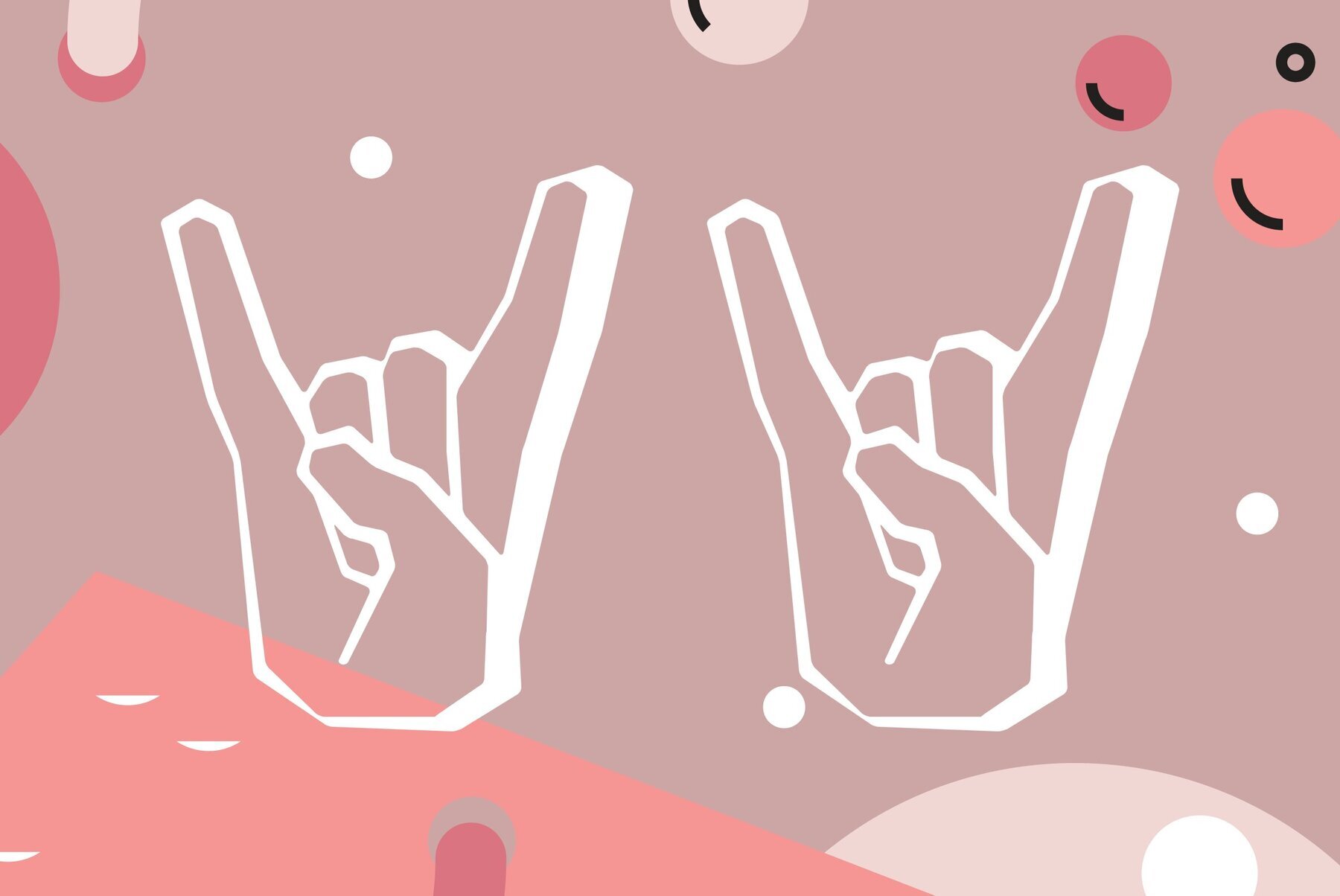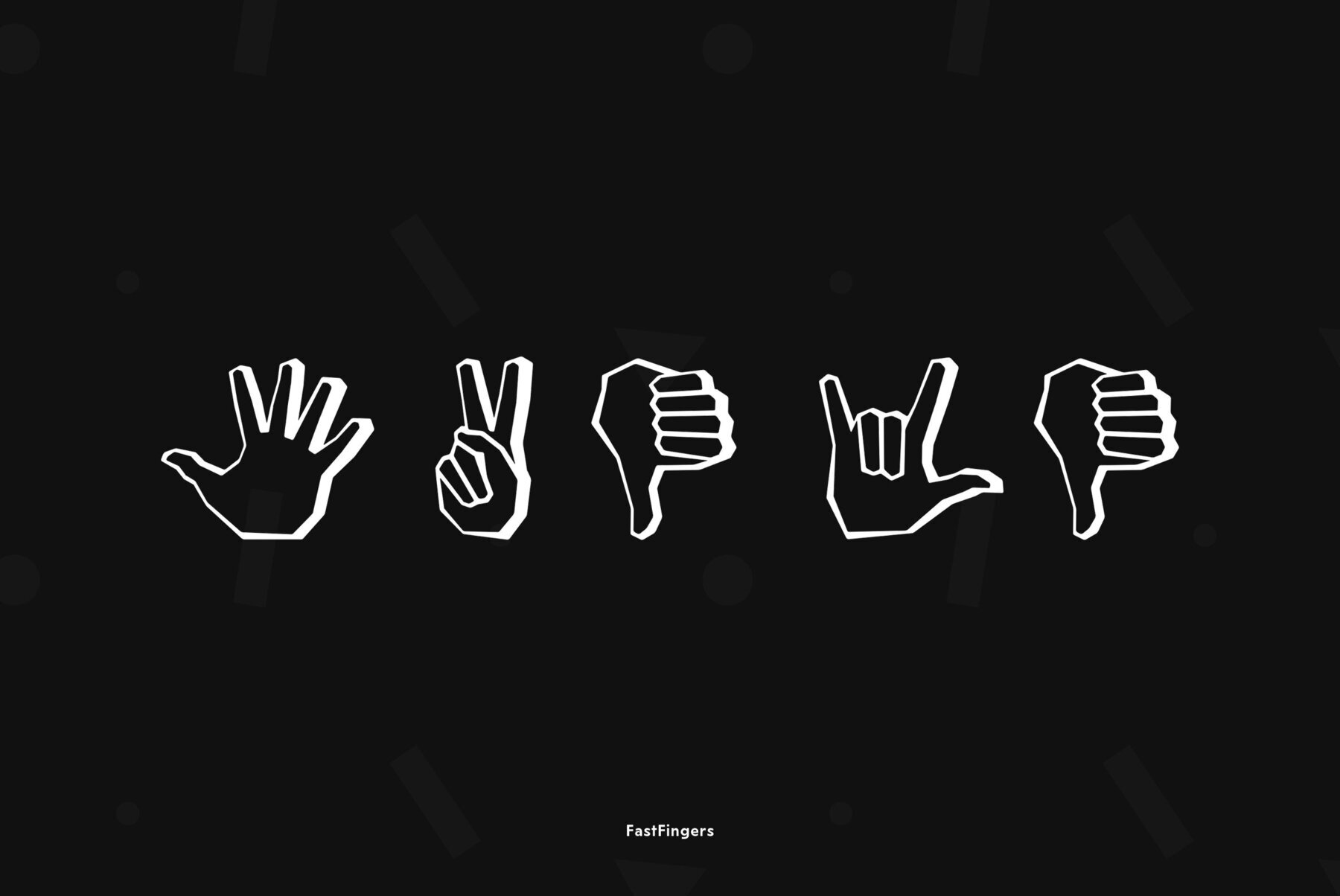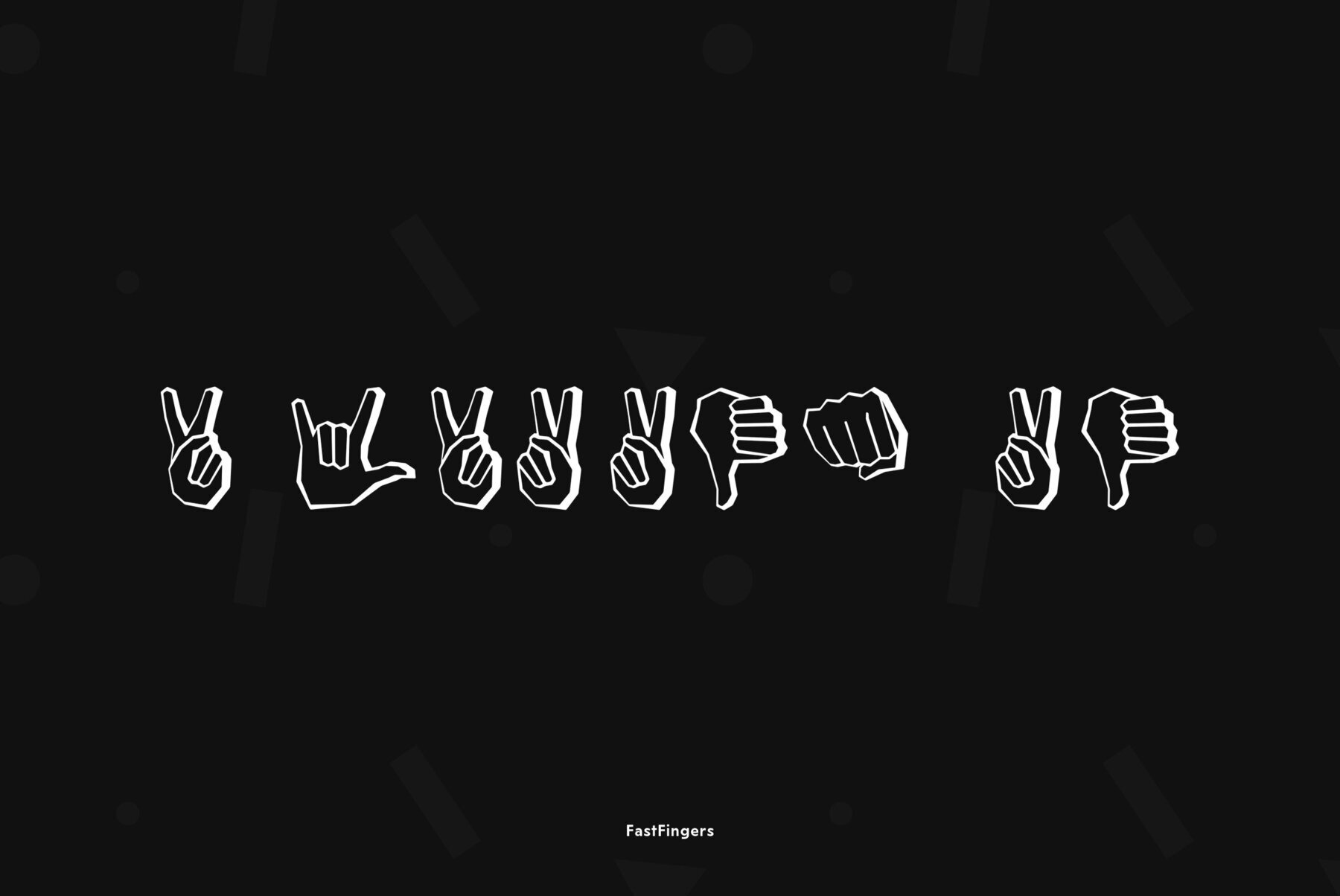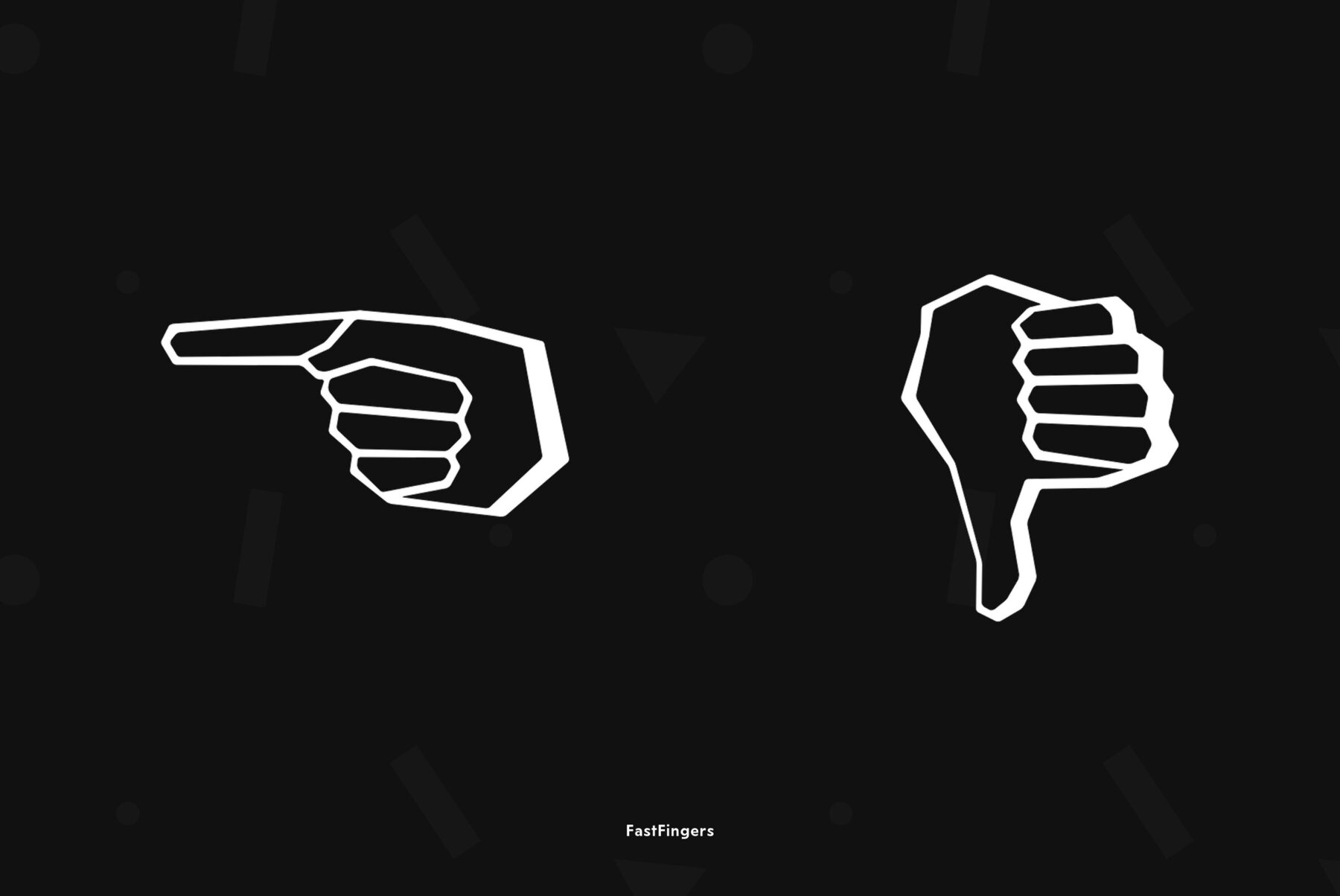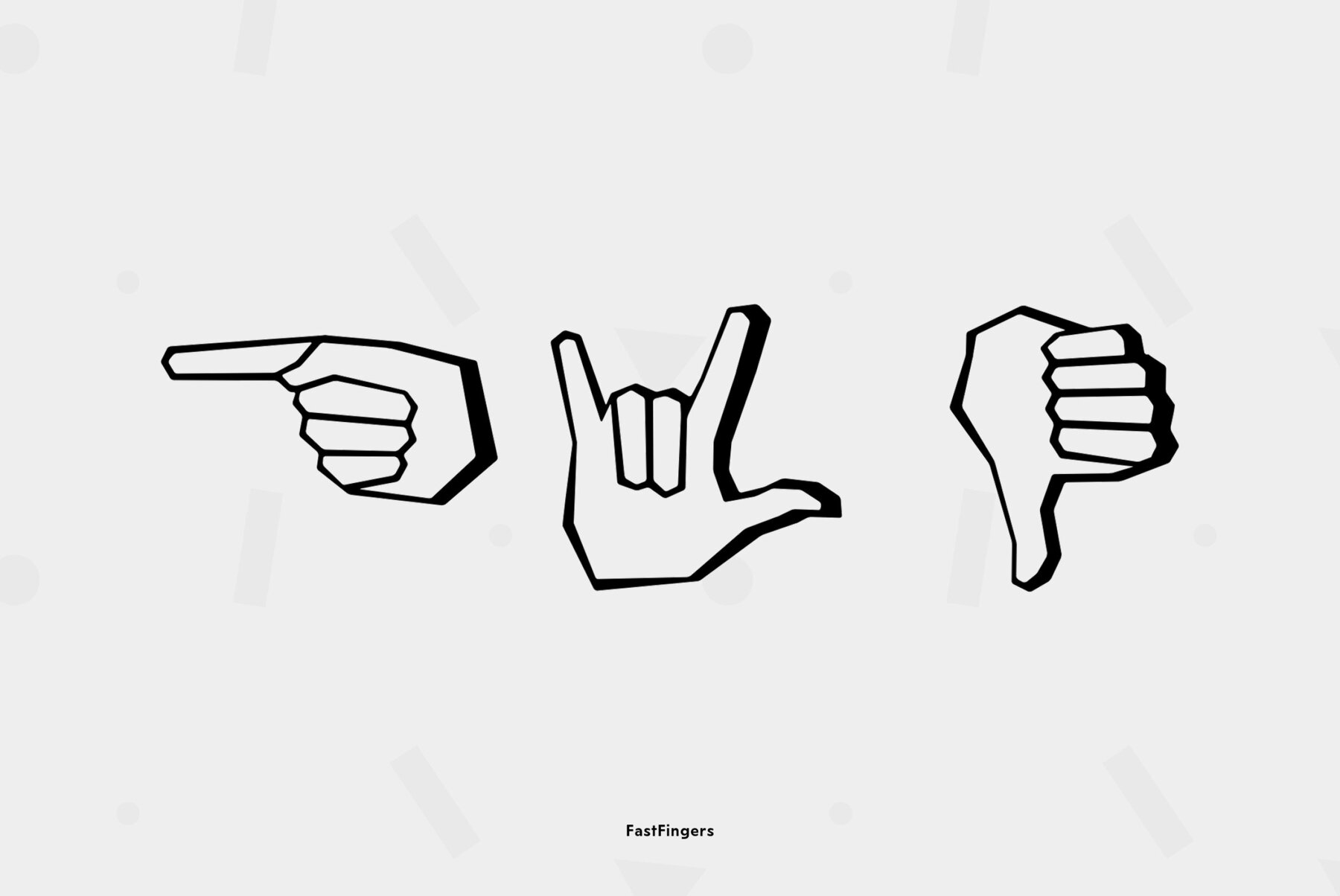
A set of signs designed by Andrey Belonogov. It includes representation of gestures used by left- and right-handed people in different countries to enhance the power of speaking.
A set of signs designed by Andrey Belonogov. It includes representation of gestures used by left- and right-handed people in different countries to enhance the power of speaking. The typeface (under the name Handmade) was awarded a diploma at the ATypI International Type Design Contest “Bukva:raz!”, 2001. Released by ParaType in 2008.